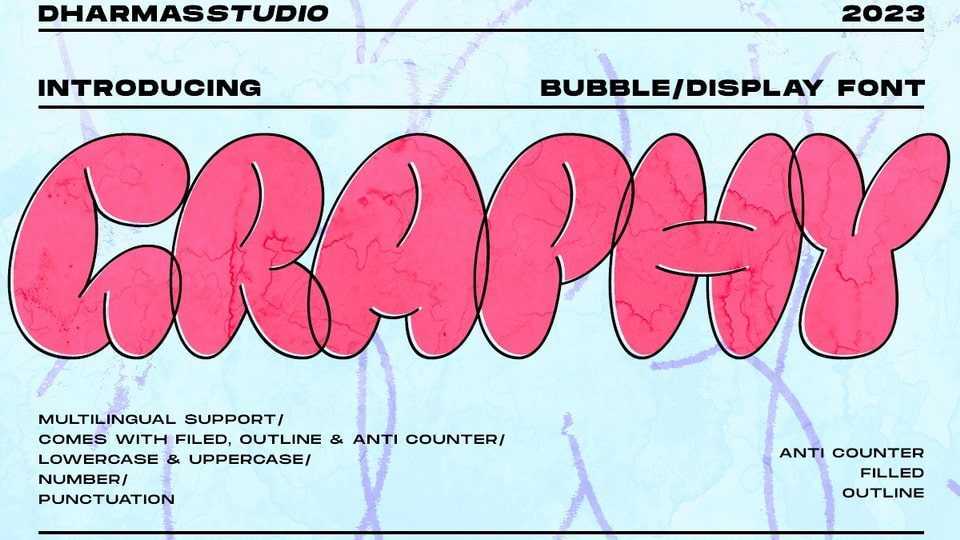
Download Graphy font, a display typeface that fuses the energetic spirit of street art and the trendsetting vibes of y2k culture. This unique bubble font is inspired by graffiti and street art.